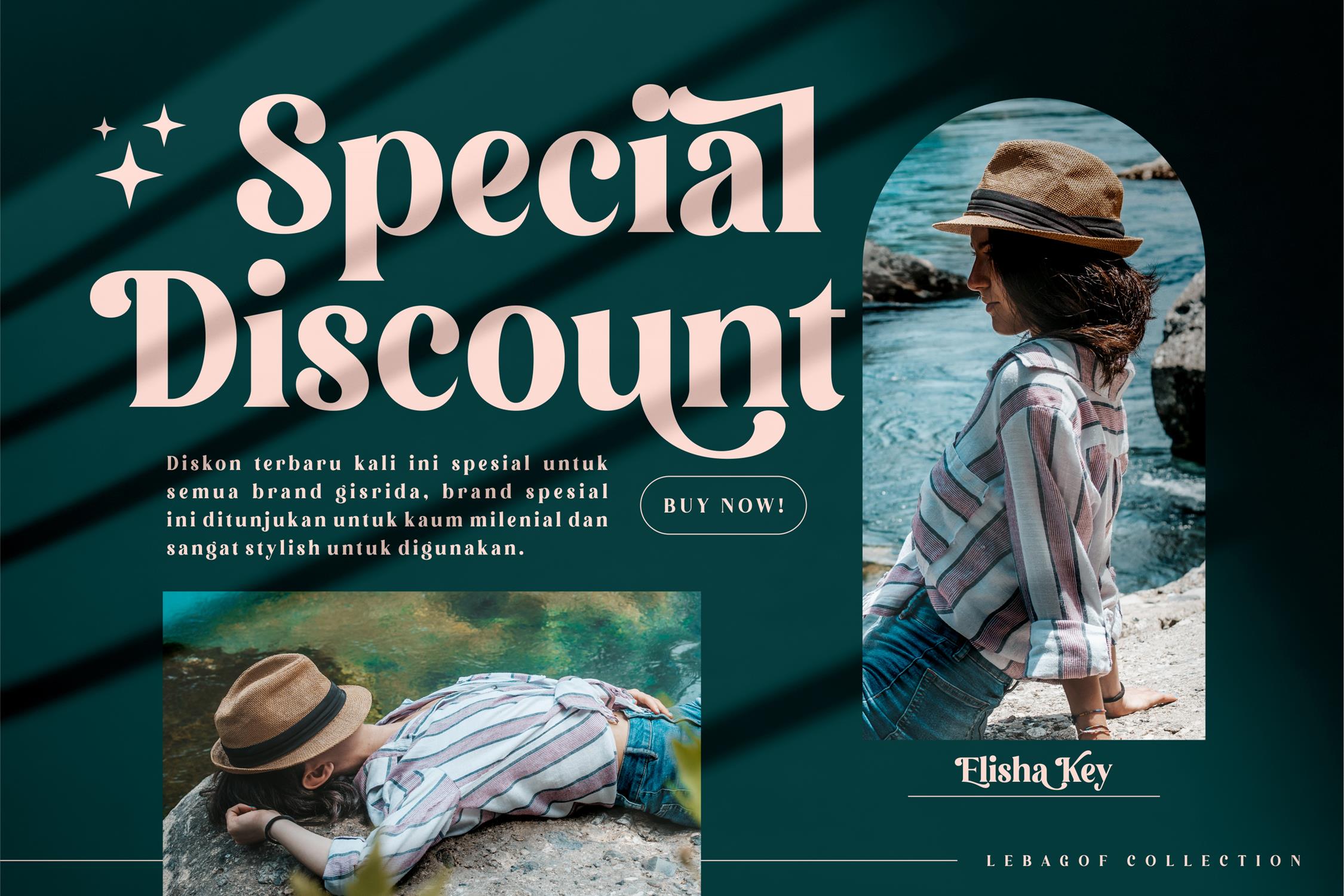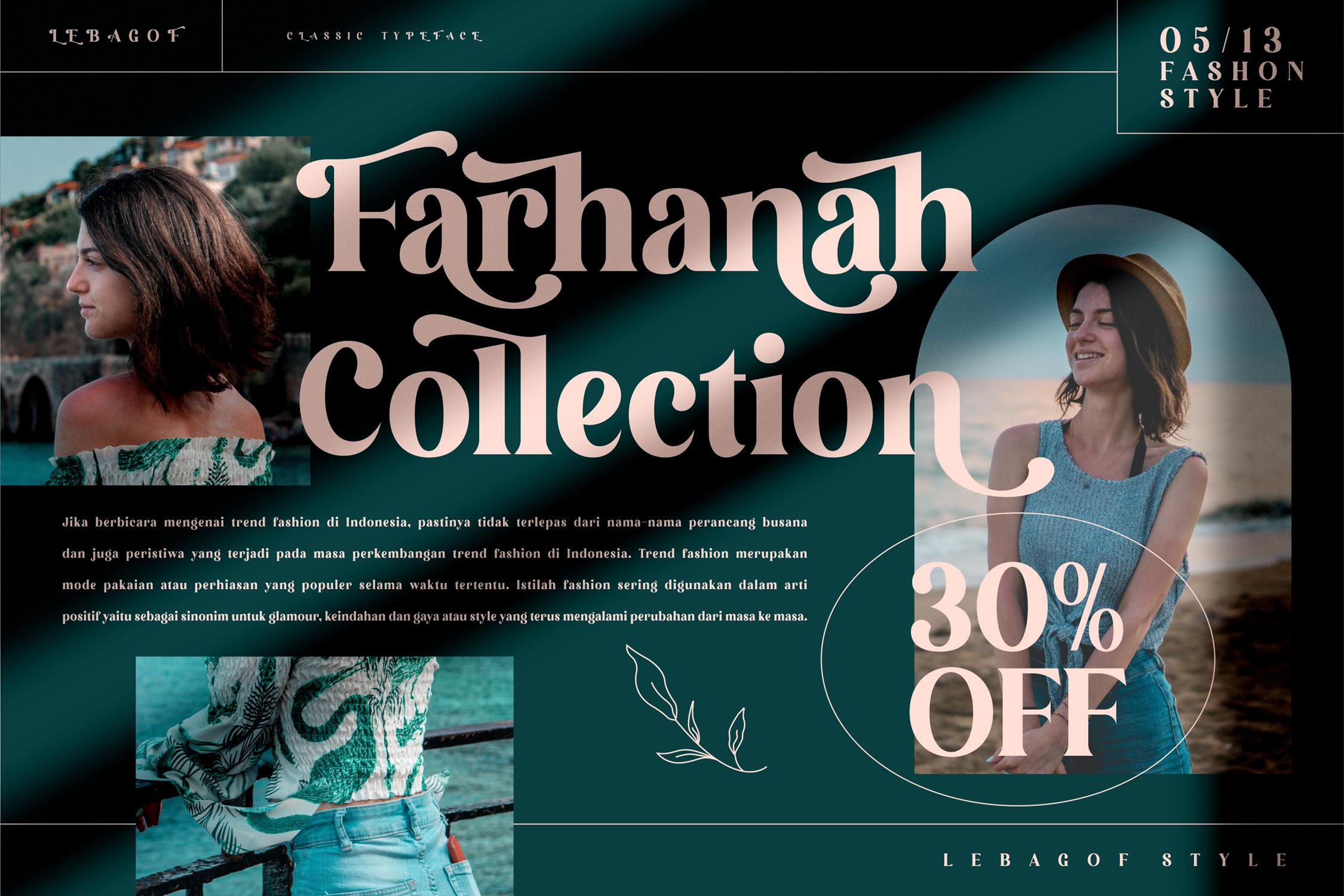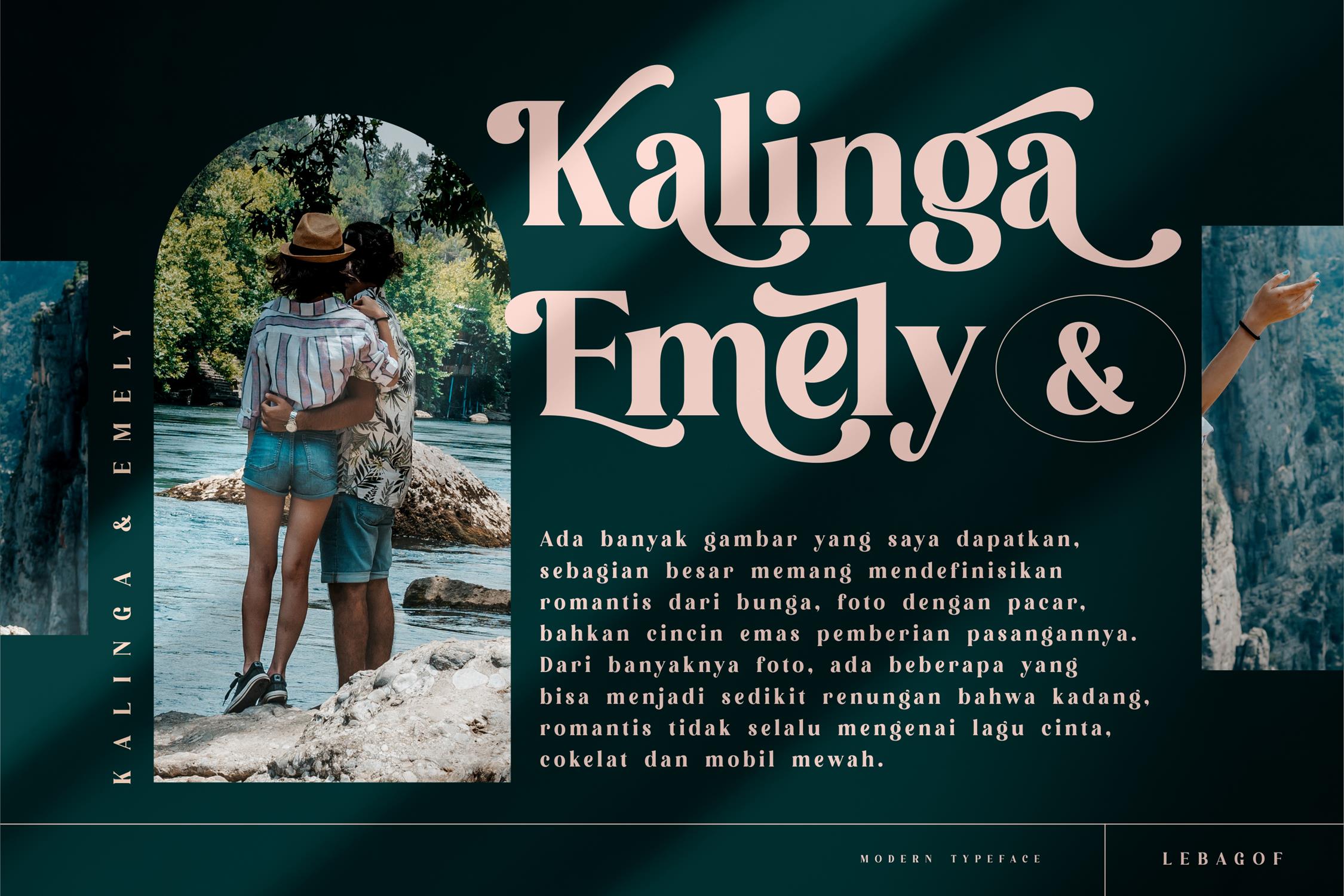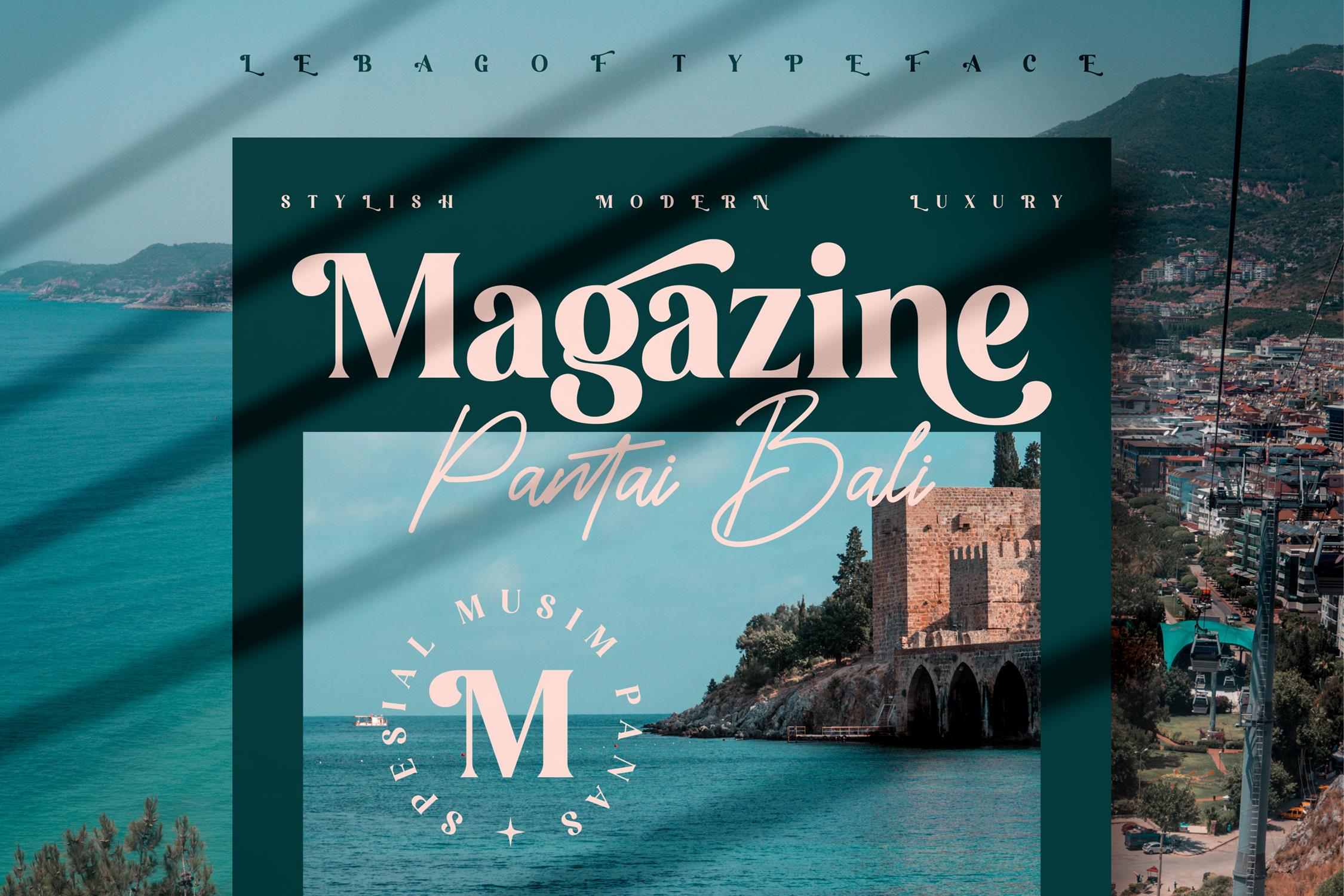
Lebagof Modern Serif Font
Proudly present Lebagof Modern Serif Font, created by Storytype, A serif modern bold typeface that has own unique style & modern look. This typeface is perfect for an elegant & luxury logo, book or movie title design, fashion brand, magazine, clothes, lettering, quotes, and so much more.